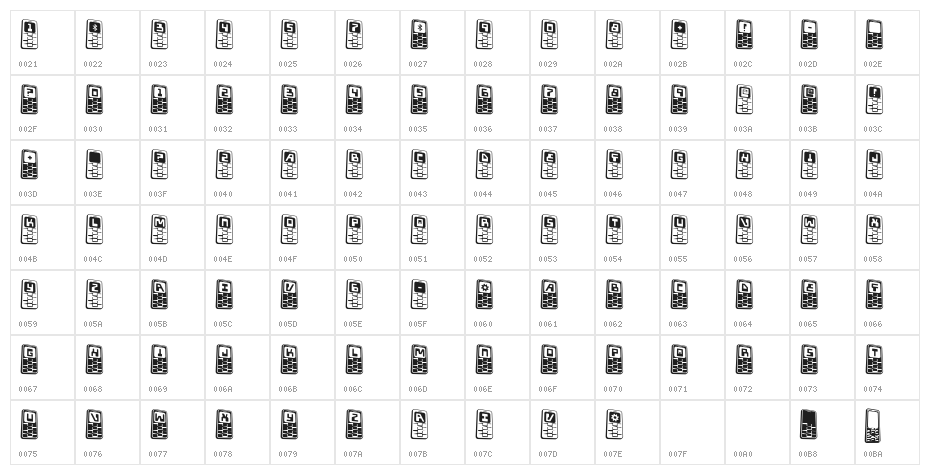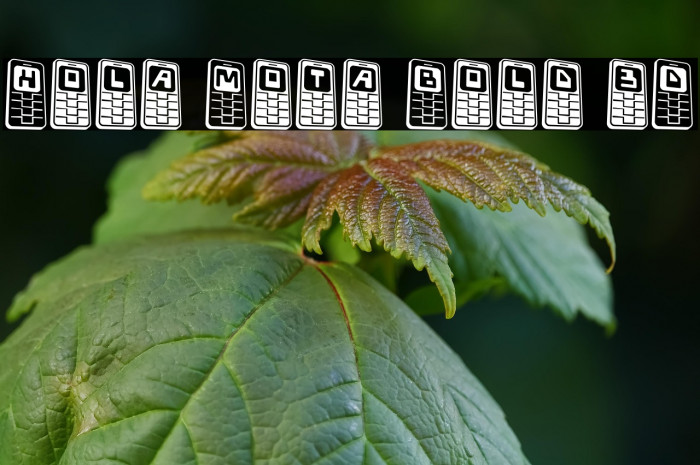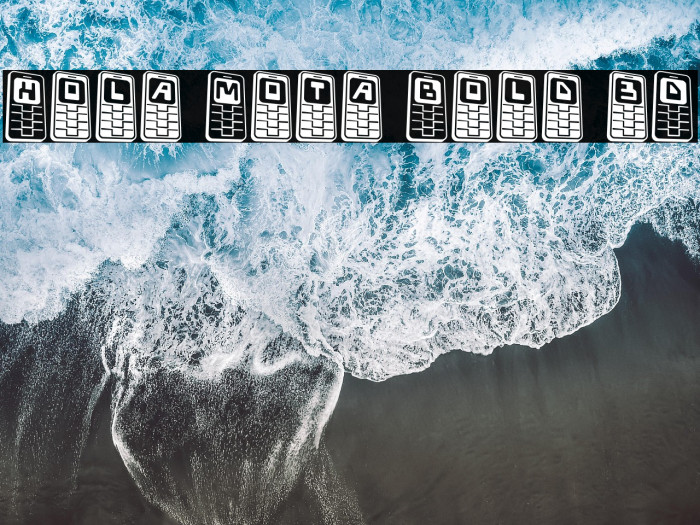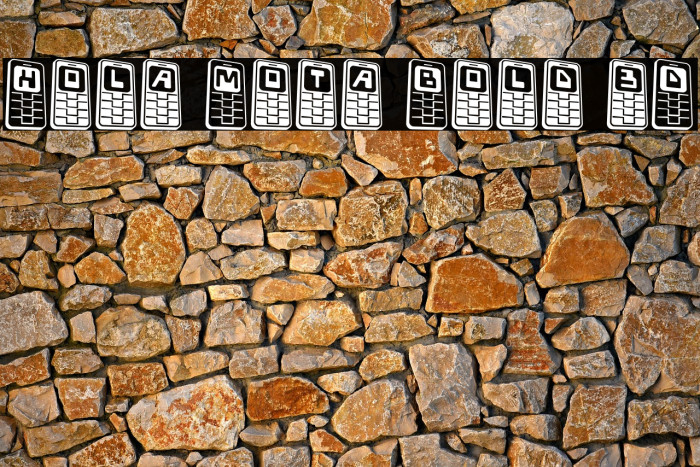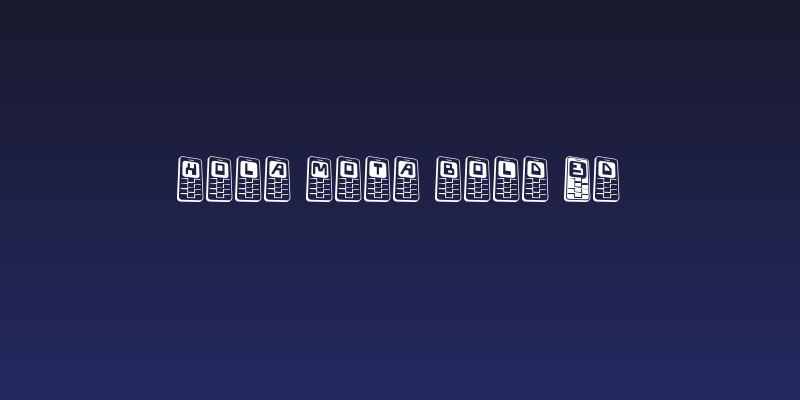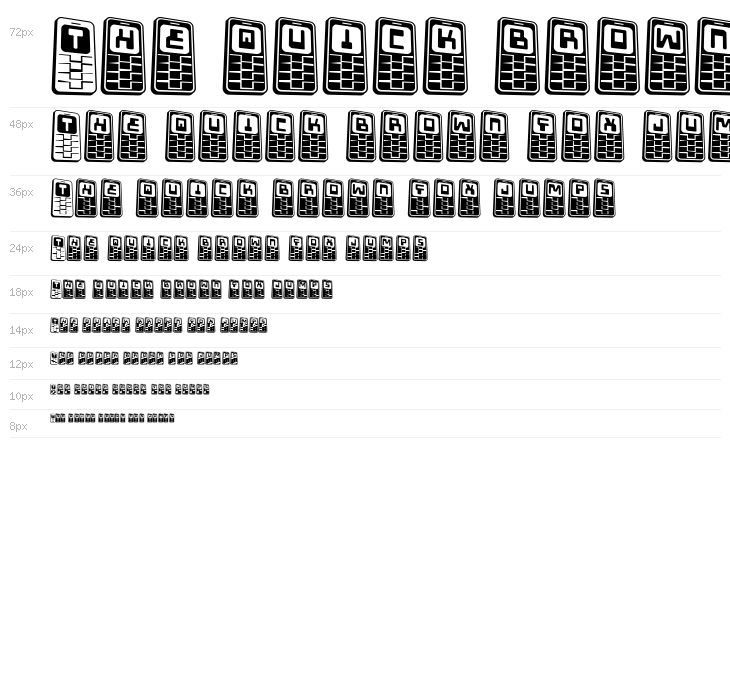
Hola Mota Bold 3D Font
Hola Mota Bold 3D Description
This font features a bold, three-dimensional design with a distinct blocky appearance. Each character is enclosed within a rectangular shape, giving it a structured and uniform look. The letters and numbers are designed with a shadow effect, enhancing the 3D illusion and adding depth. The style is playful and modern, making it suitable for eye-catching designs. The characters are evenly spaced, ensuring readability while maintaining a compact form. The font's unique structure makes it ideal for creative projects that require a strong visual impact.
| Proposed Projects | Ideal for posters, logos, video game graphics, and any project needing a bold, standout typeface. |